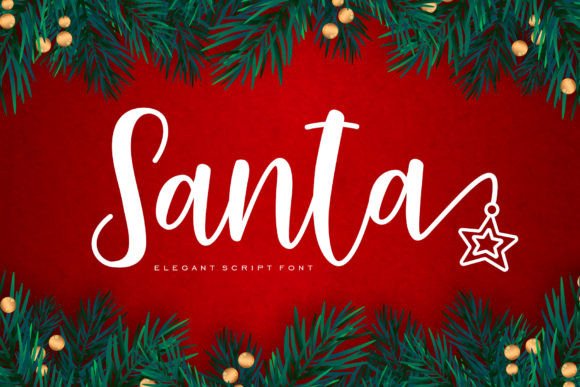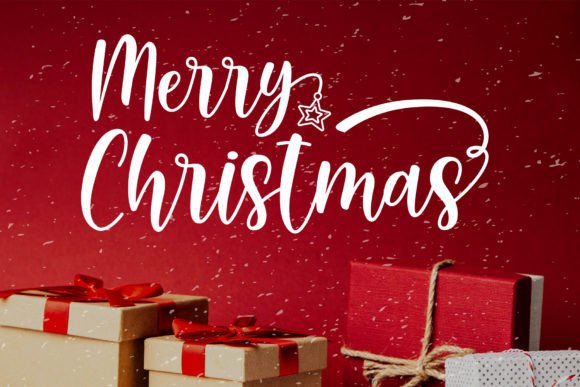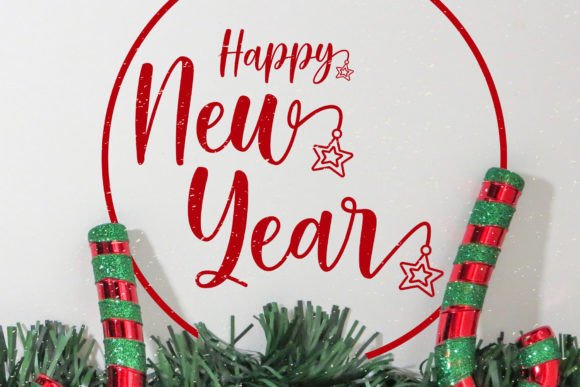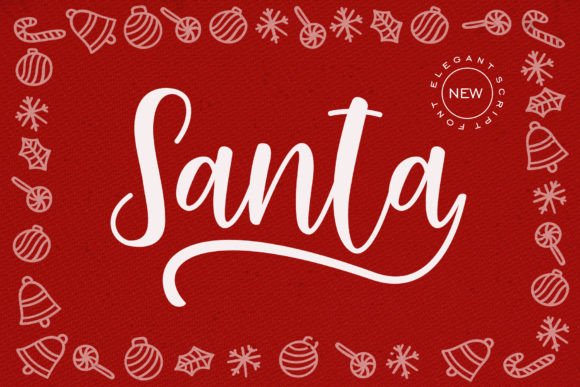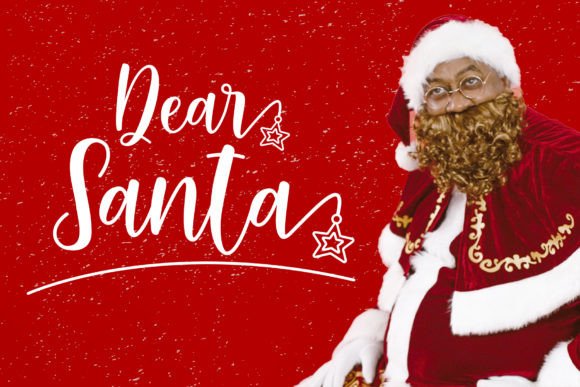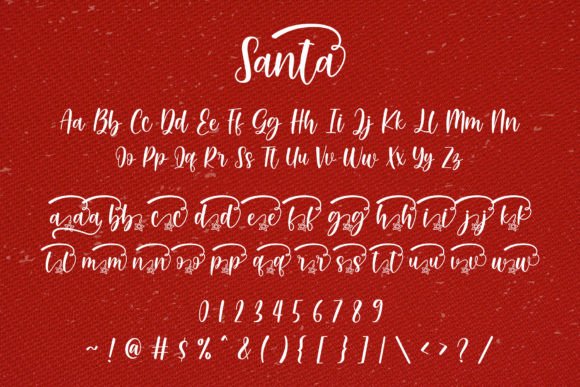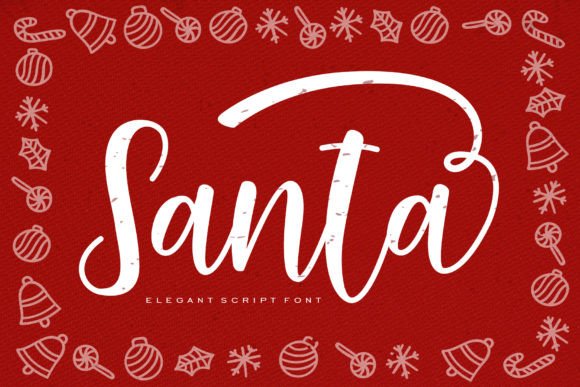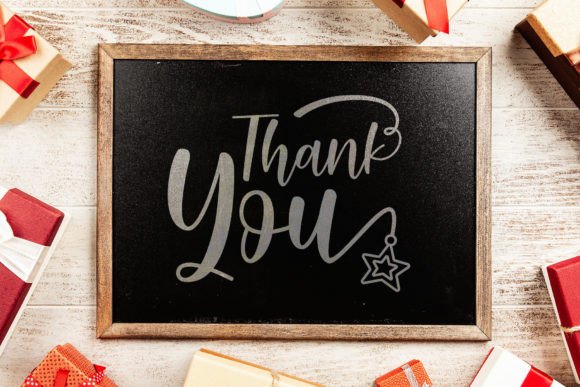
About Santa Font
Santa font is a magical script font designed with elegance and charm. When you download Santa font, you get a beautiful typeface that transforms any creative project into a true piece of art. This font’s flowing strokes and graceful curves make it ideal for a variety of design applications.
Why Download Santa Font?
Santafont brings a sophisticated yet enchanting feel to your designs. It is perfect for those who want to add a handcrafted, calligraphic touch with ease. By downloading Santafont, you gain access to a versatile script that complements social media posts, invitations, logos, and much more.
Perfect for Instagram and DIY Projects
Whether you’re creating stylish Instagram graphics or crafting personalized DIY projects, Santafont provides the perfect script style to elevate your ideas. Its elegance ensures that every design stands out with a unique, magical flair.
Versatile Use for Various Designs
Santafont is well-suited for:
Instagram posts and stories
Wedding invitations and greeting cards
Personalized calligraphy projects
Branding and logo designs
Downloading Santafont will help you create stunning visuals that capture attention and convey a sense of sophistication.